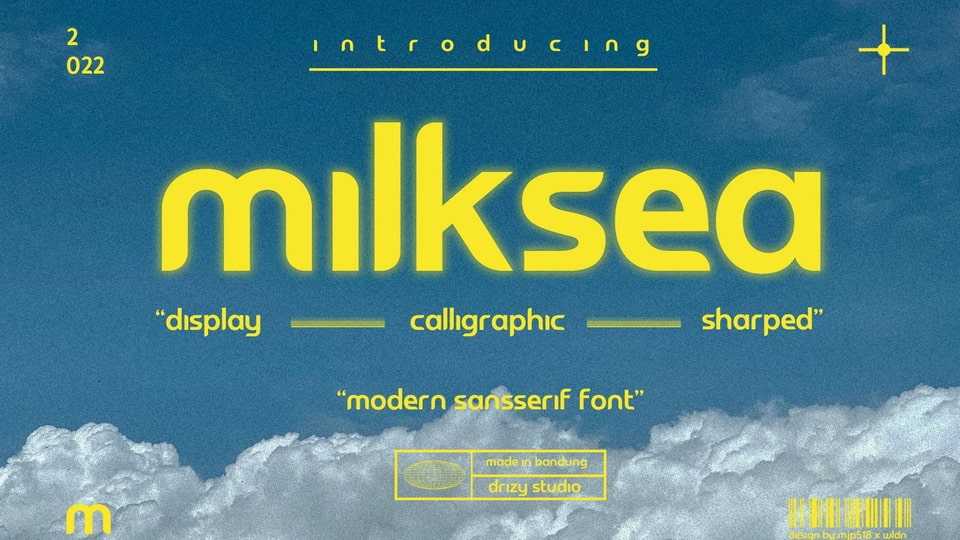
Download Milksea font, a modern geometric sans serif typeface. Milksea offers all the styles you need for aesthetic, beauty, or any other design projects.
Designer: Drizy Studio